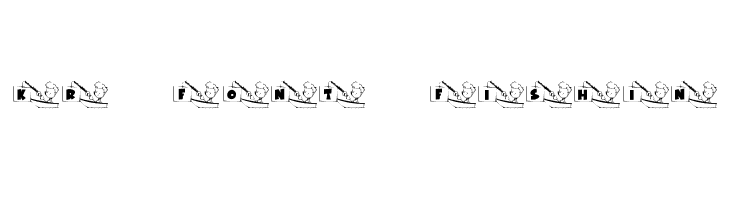
A decorative font with a playful fishing theme, featuring bold letters integrated with fishing elements.
A bold, decorative font with a fishing theme, featuring fish illustrations alongside each letter.